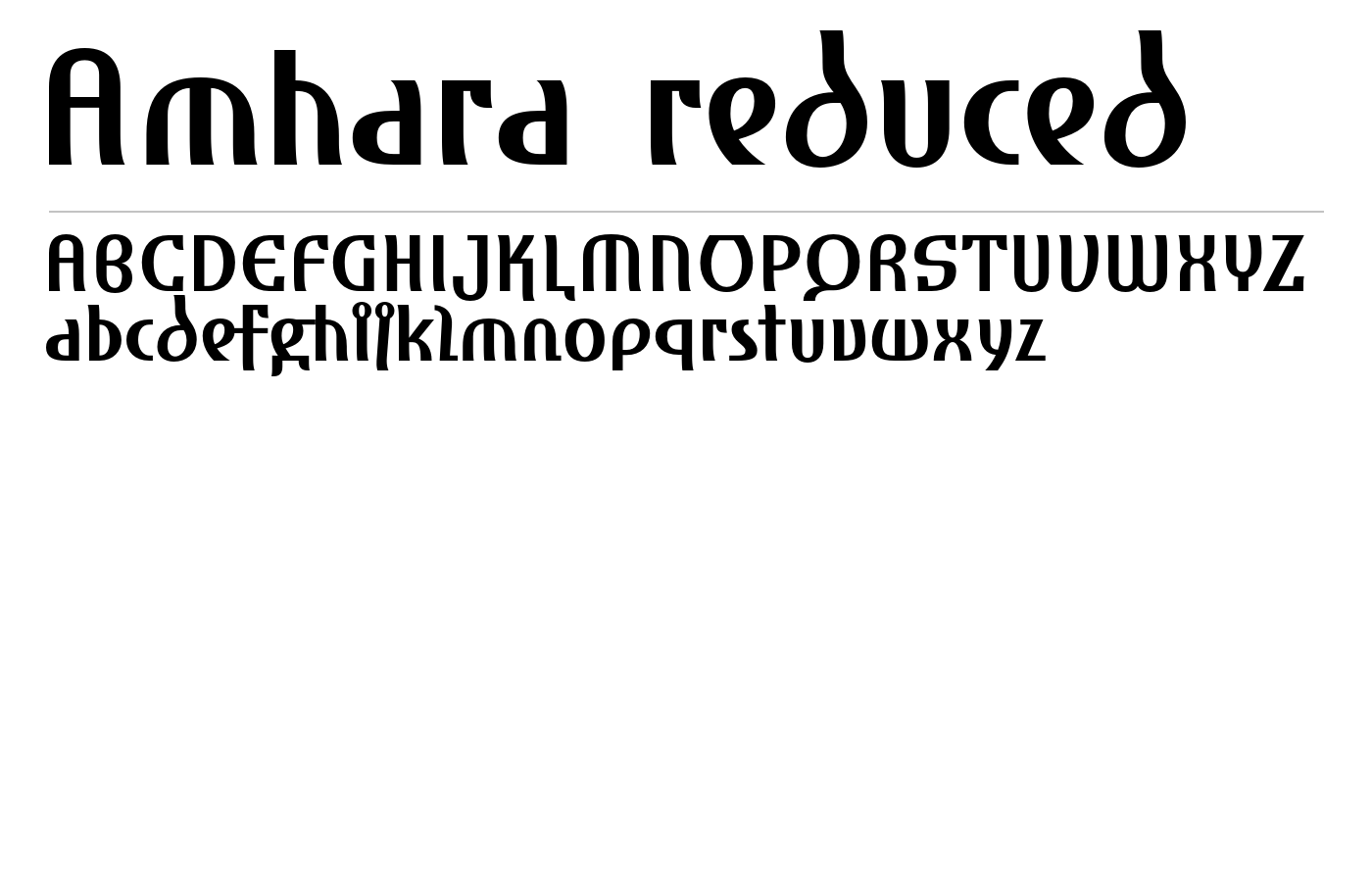
Amhara Reduced is a condensed sans serif font with a modern and slightly geometric feel, featuring strong vertical lines and subtle curves that give it a distinct personality. Its medium weight and high x-height make it highly legible, while unique letterforms such as the rounded, single-story 'a' and stylized 'r' add character. This font works well for headlines, logos, and branding projects that seek a contemporary yet approachable look with a touch of uniqueness.
| Designer | Ingo Zimmermann |